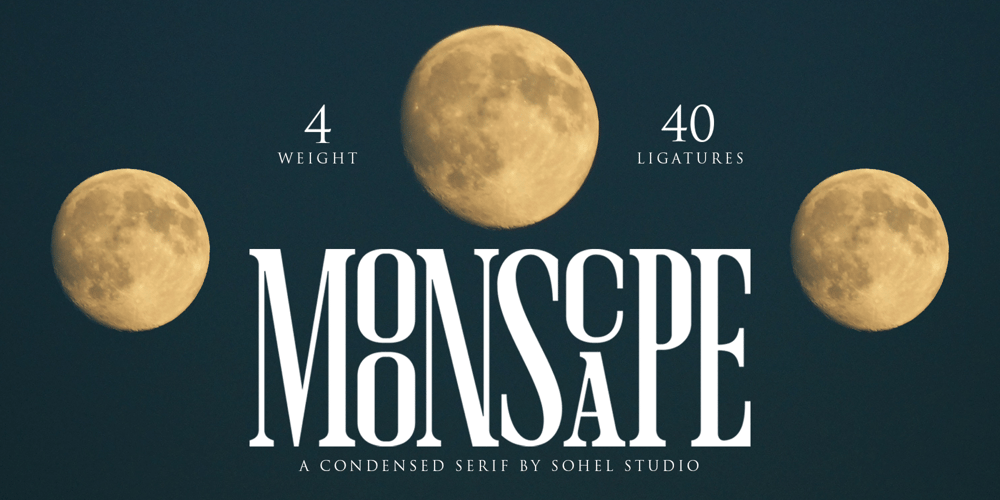
Moonscape Font Family was designed by Akhmad Husain Rifa’i and published by Sohel Studio. Moonscape contains 5 styles and family package options. “Moonscape” is a Condensed serif that has 40 Unique Ligatures. Depicted to provide a confident and impressive base headline, while still feeling warm and welcoming. there are 4 different styles that you can apply in your design projects. This typeface is perfect for an book or movie title design, fashion brand, magazine, clothes, lettering, quotes, social media posts and so much more.Moonscape Features: 5 Weights font (Regular,Thin,Italic,Bold,Outline) Uppercase Numerals & Punctuation Accented characters Multilingual Support 40 Ligatures PUA Encoded While using this product, if you encounter any problem or spot something we may have missed, please don’t hesitate to drop us a message. We’d love to hear your feedback in order to further fine-tune our products.Thanks and have a wonderful day